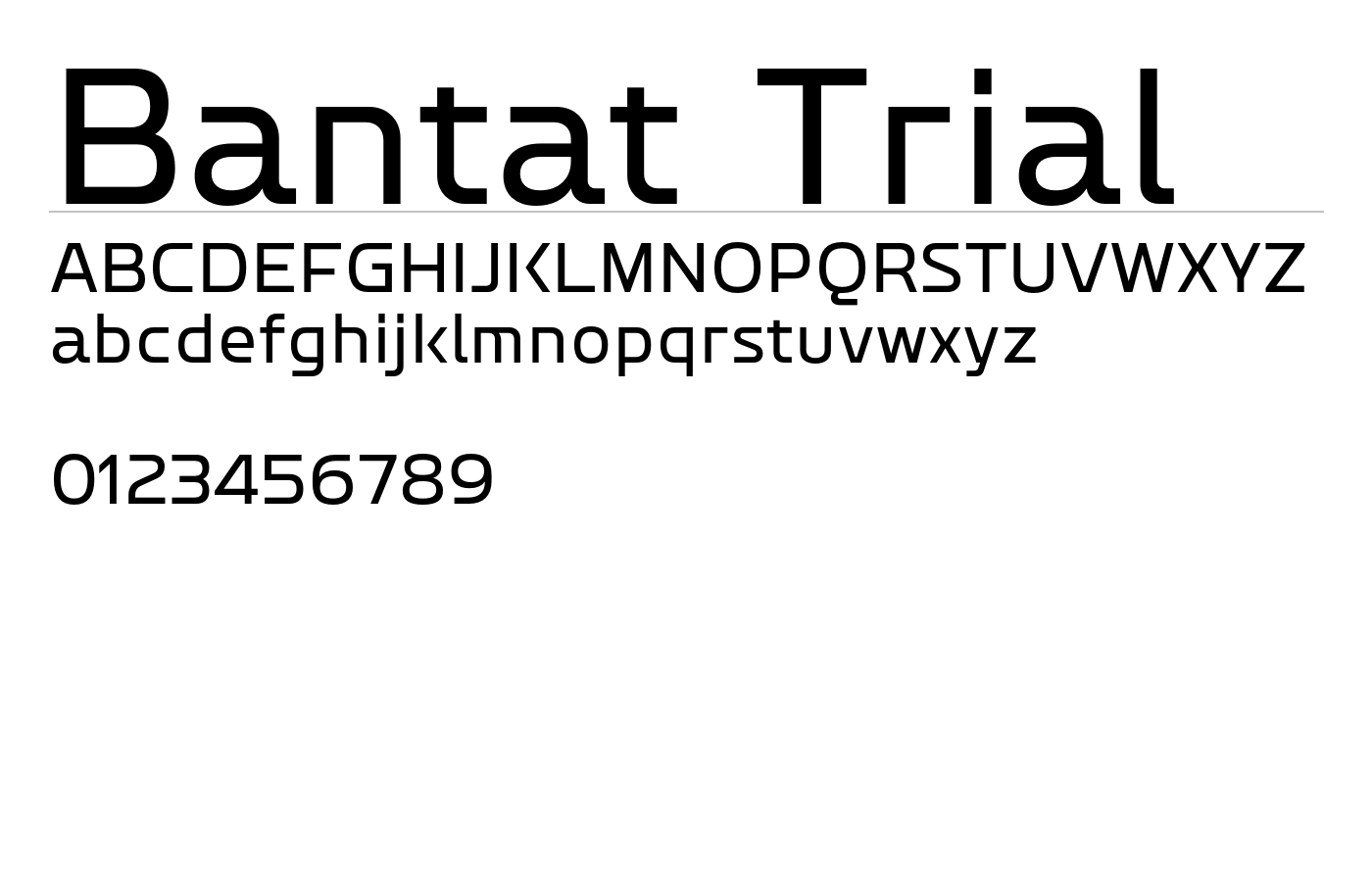
Bantat Trial is a clean and modern sans serif font with a monoline structure and moderate x-height that enhances readability. Its geometric and slightly squared letterforms lend a contemporary, technical feel, making it ideal for tech brands, user interfaces, and editorial projects that require clarity and a forward-looking style. This font works well for headlines and digital displays where a subtle yet strong personality is desired.
Bantat Trial Font
About Bantat Trial Font
| Font family | Bantat Trial Font |
| Languages supported | Latin, Thai, Symbols, Greek |
| Designer | Anupap Jaichumnan |